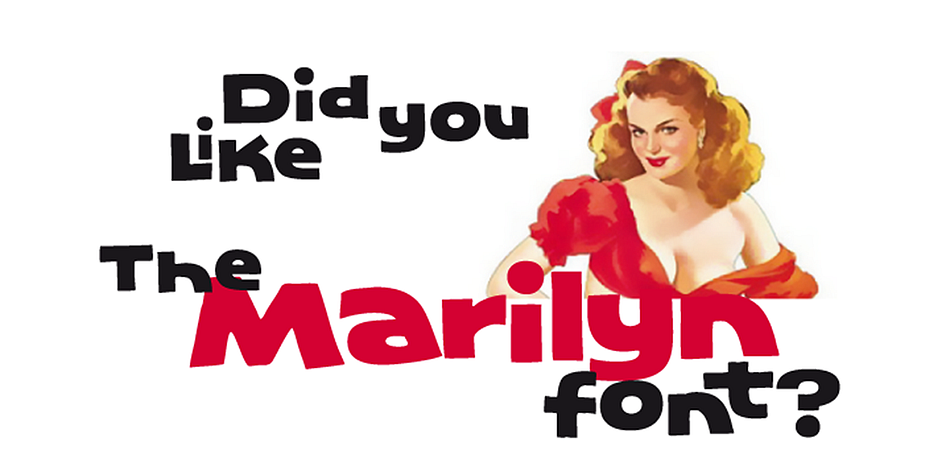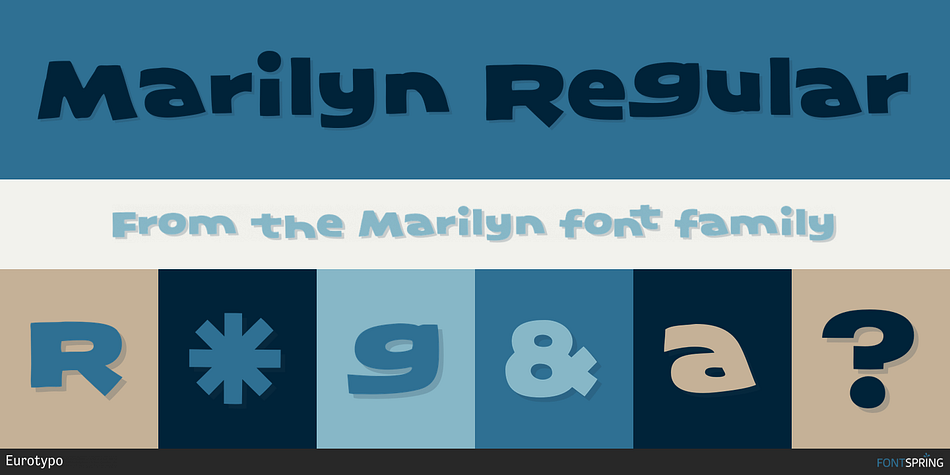
Marilyn Regular
Designed by Carine de Wandeleer, Marilyn is a hand display font published by Eurotypo.
Marilyn is a heavy sans typeface; the extreme variations of the baseline of their glyphs cause dramatic typographic effects, flexibility “glamour” with vintage taste.
Marilyn has been designed for use in many forms of commercial jobbing and typographic work that have been mushroomed since de visual communication revolution — like posters, brochures, packaging, logotypes, magazines, children books, headlines, booklets, leaflets, websites, and much more.
Marilyn comes also with a large set of ligatures, stylistic alternates and pictograms that enlarge visual expressive possibilities and give you more creative chances.